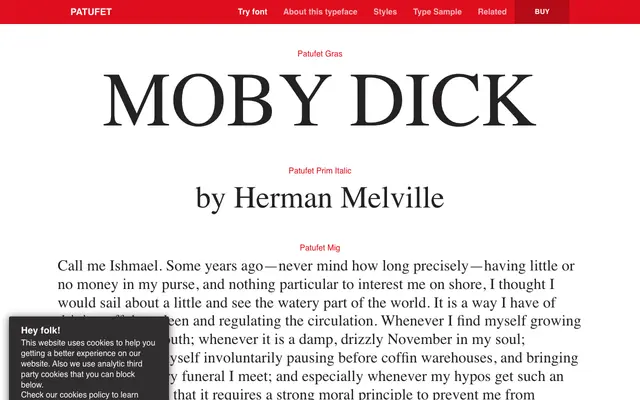
A five-weight serif family from Typerepublic with Catalan-inflected naming, spanning from fine text to a heavy display weight, each with matching italics.
The family runs across five weights — Finet, Prim, Mig, Gras and Obes — each paired with an italic, giving ten styles in total. The weight names draw on Catalan vocabulary, and the specimen samples include Catalan-language text, suggesting a regional cultural sensibility. OpenType features are extensive, covering oldstyle figures, historical forms, historical ligatures, fractions and multiple stylistic sets.
The specimen and weight names suggest a text-oriented serif family with a range from fine to heavy weights, consistent with a transitional or humanist serif design intended for both text and display use.